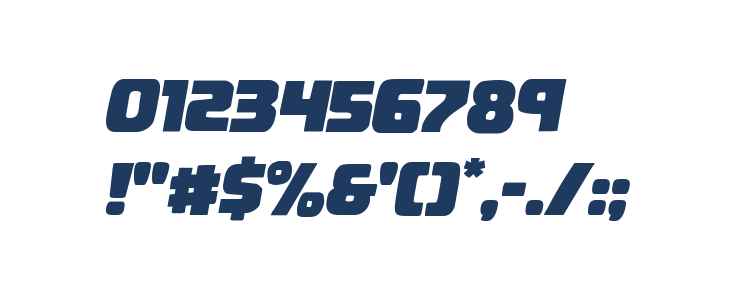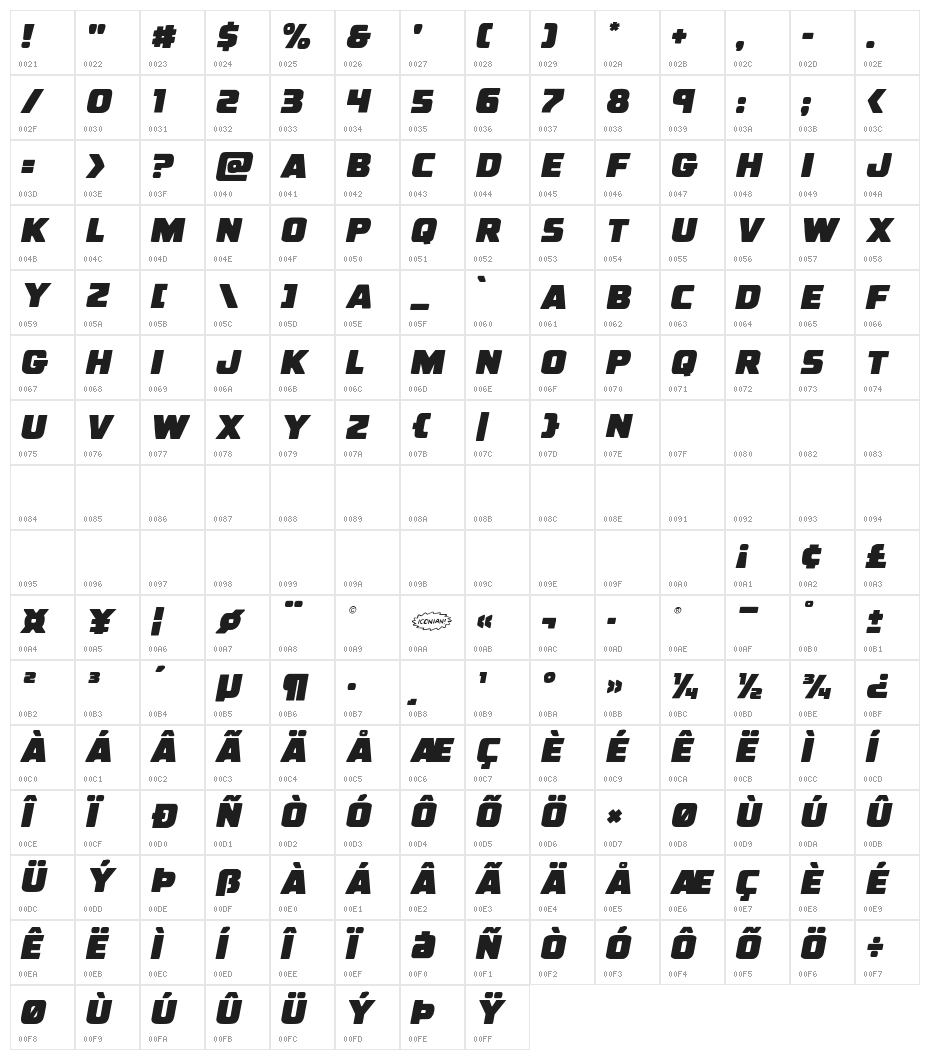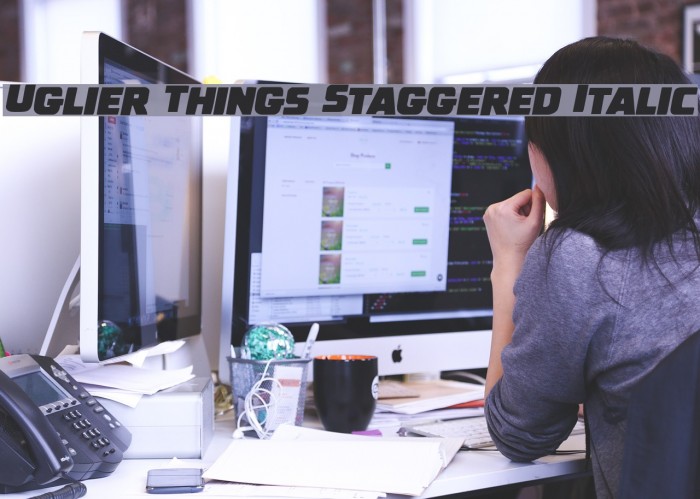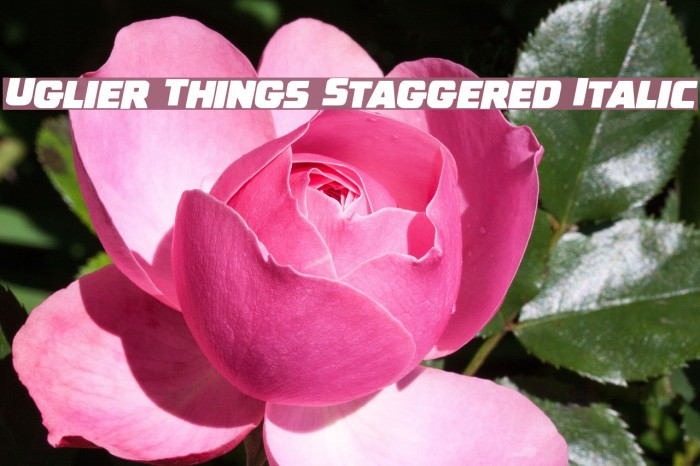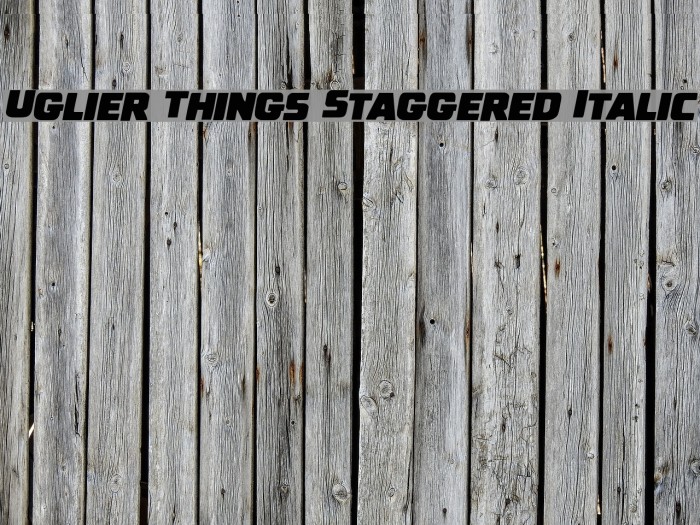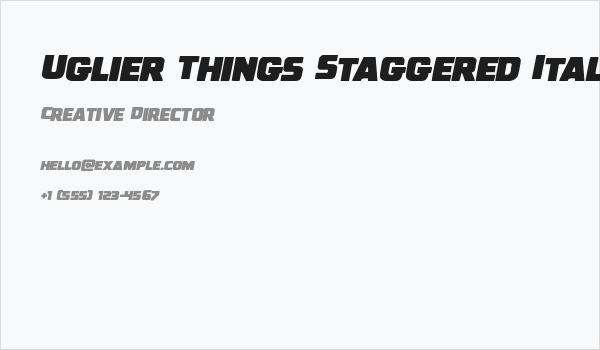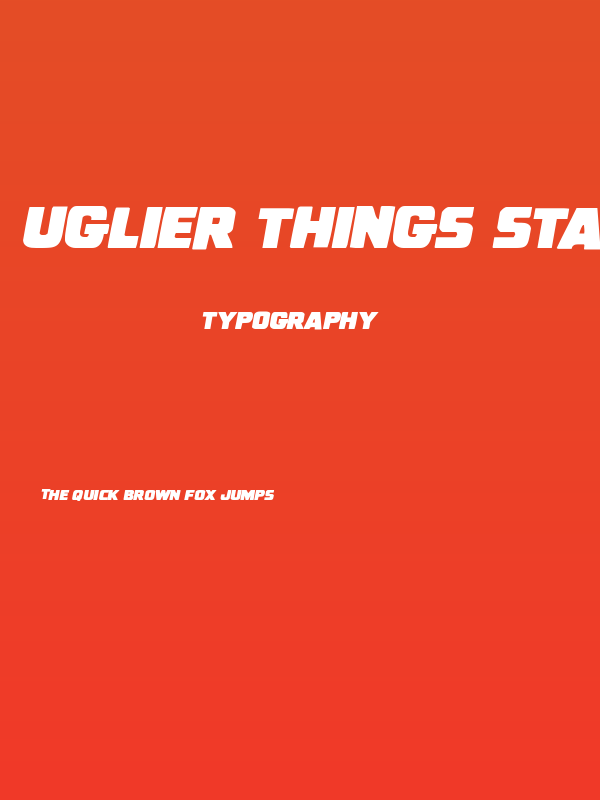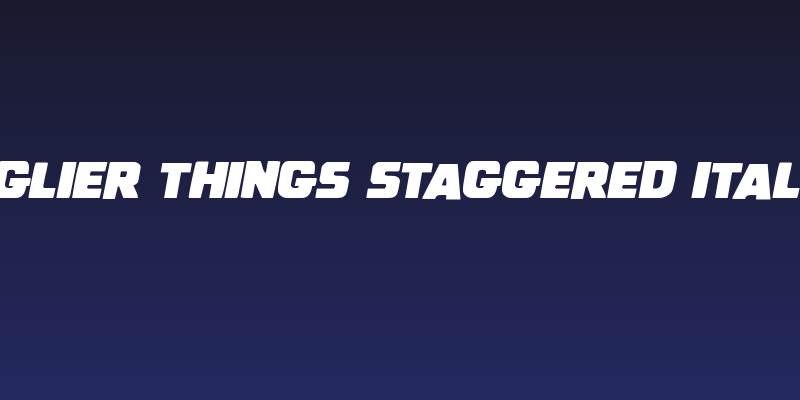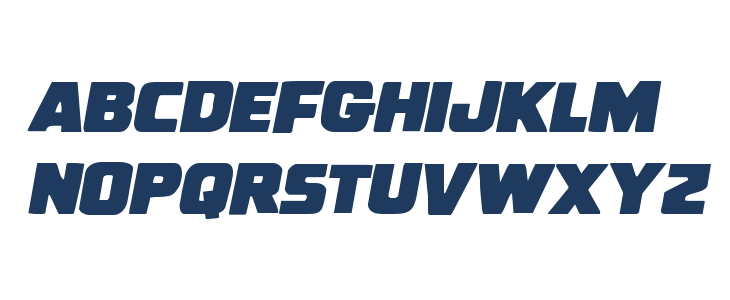
Uglier Things Staggered Italic Font
Uglier Things Staggered Italic Description
This font features a bold, italicized style with a strong, dynamic presence. The characters are heavily weighted and slightly condensed, giving them a powerful and impactful appearance. The italic slant adds a sense of motion and urgency, making it suitable for attention-grabbing headlines or branding materials. The strokes are consistent in thickness, providing a uniform look across all characters. The overall design is modern and assertive, with a slight retro influence that adds character and uniqueness to the text.
Proposed ProjectsIdeal for sports branding, dynamic posters, bold headlines, and modern advertising campaigns.